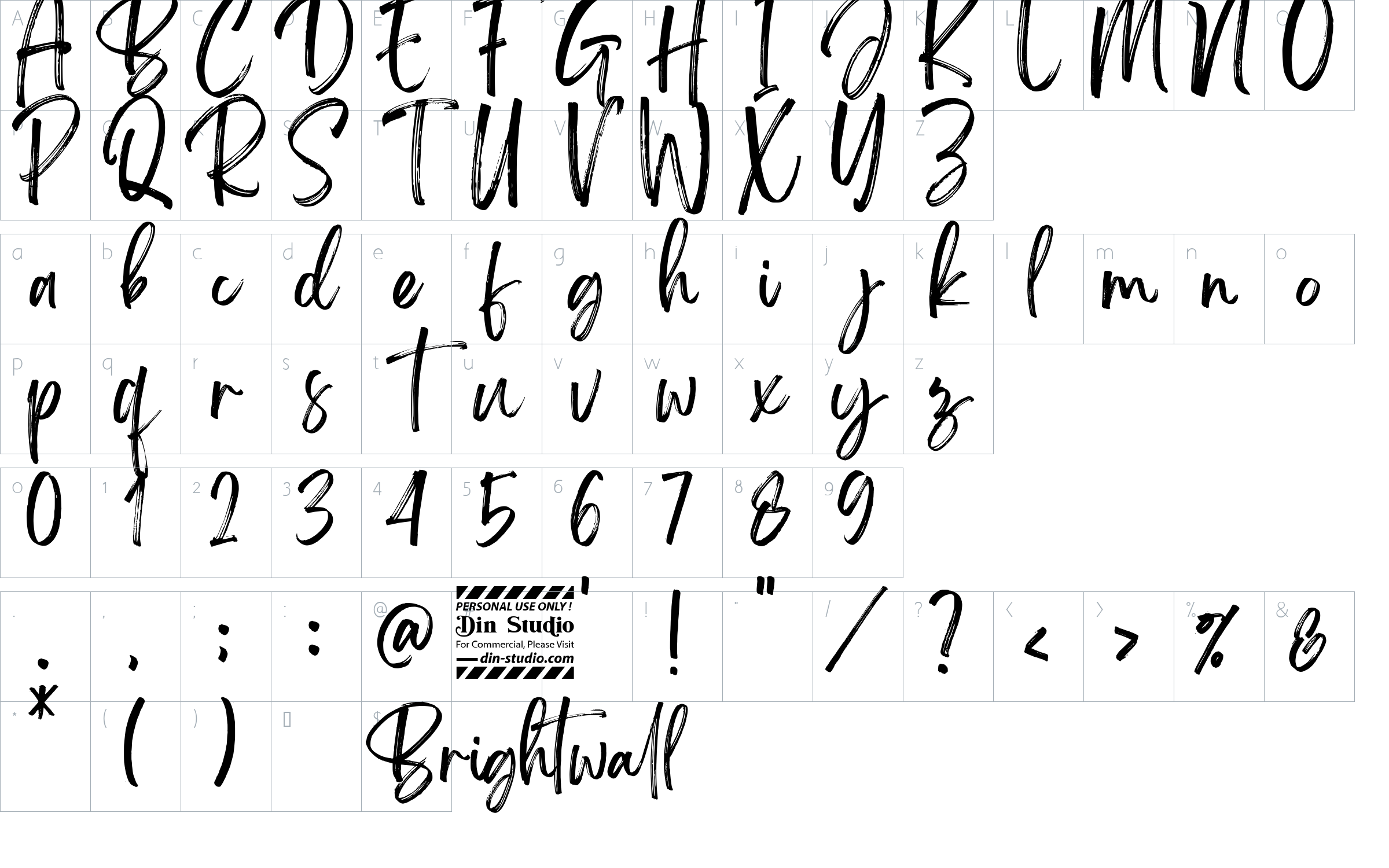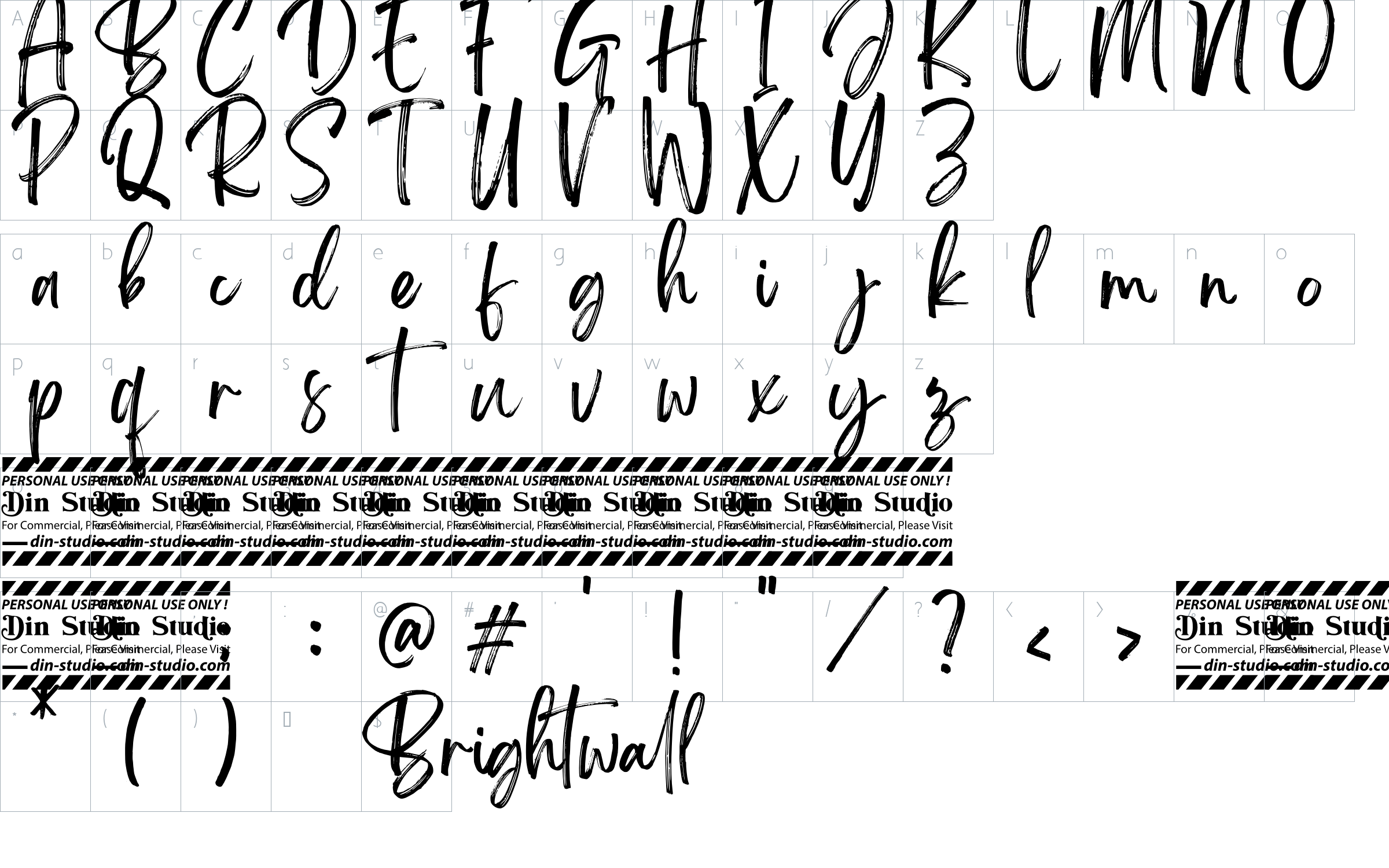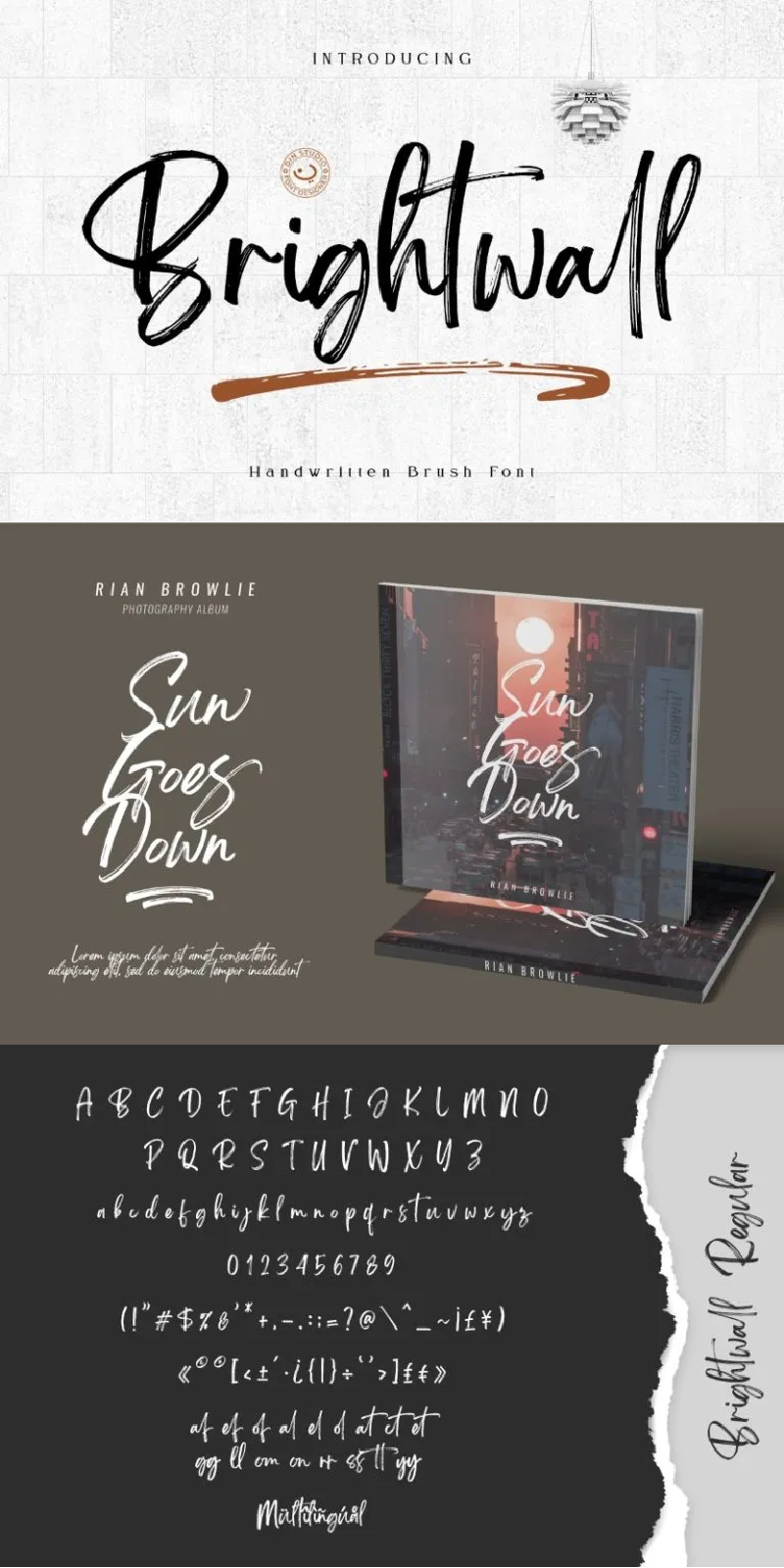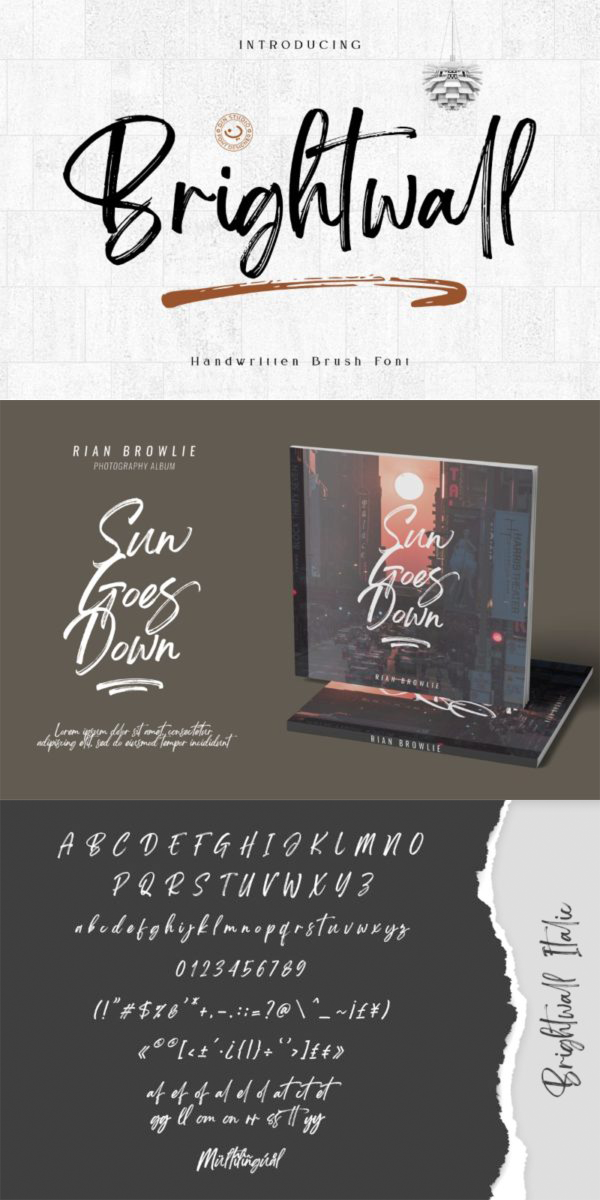
Brightwall Font
About Brightwall
Introducing Brightwall Brush Font made with natural brush. The texture from the brush font will make your designs more beautiful and powerful. This font is suitable for any designs like brandings, quotes, t-shirt printings, etc.
- Accents (Multilingual Characters)
- 17 Ligatures
- Extra Swashes